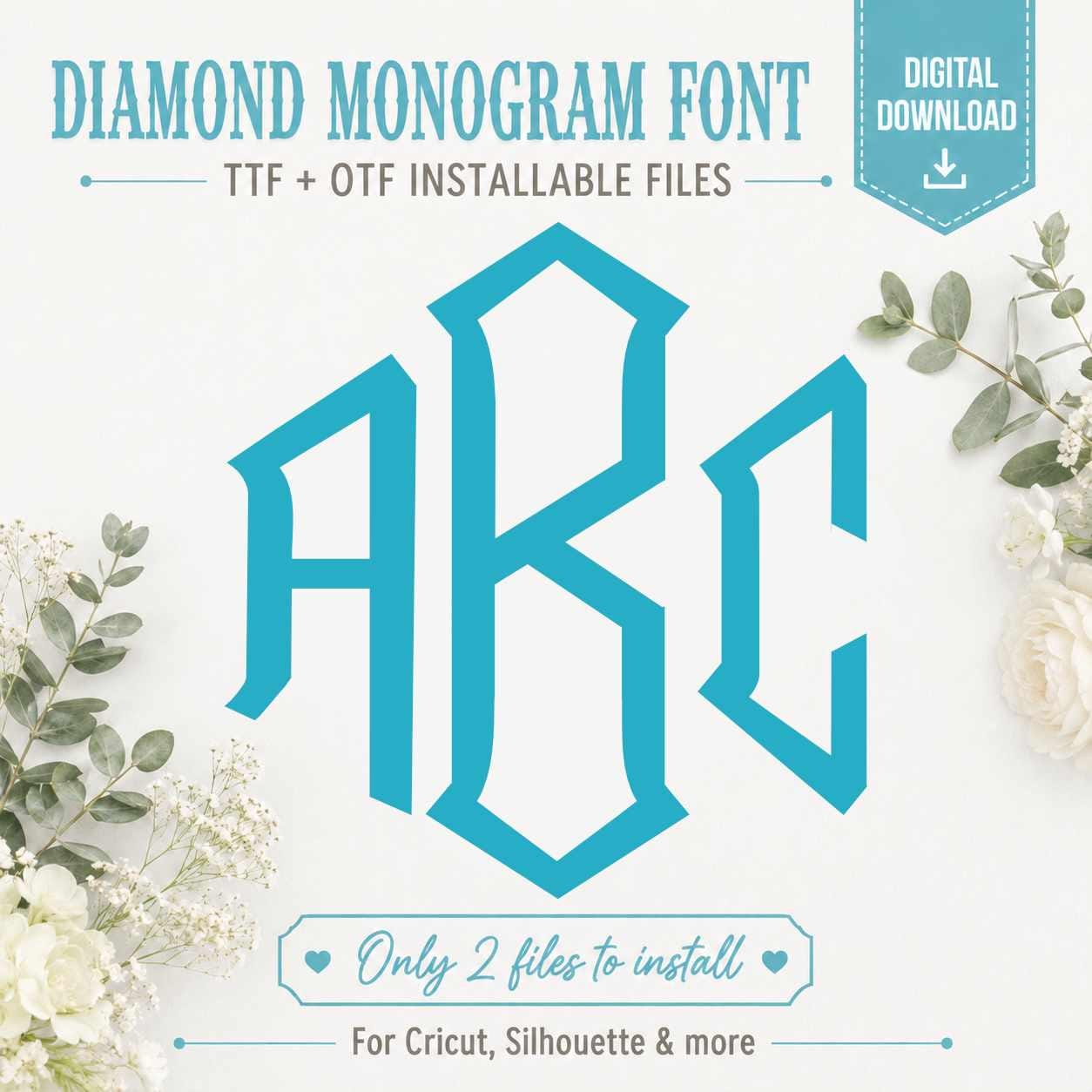
Create bold, geometric three-letter monograms with this installable Diamond Monogram Font for Cricut, Silhouette, and other desktop programs that support TTF or OTF fonts. Install the font set on your computer and type the initials you need—no uploading individual alphabet letters one at a time.
To get the Monogram look as shown, type lower case for the outside letters and Upper Case for the Middle letter. Letters can be ungrouped in Cricut Design Space and Silhouette Studio so you can adjust the spacing between letters.